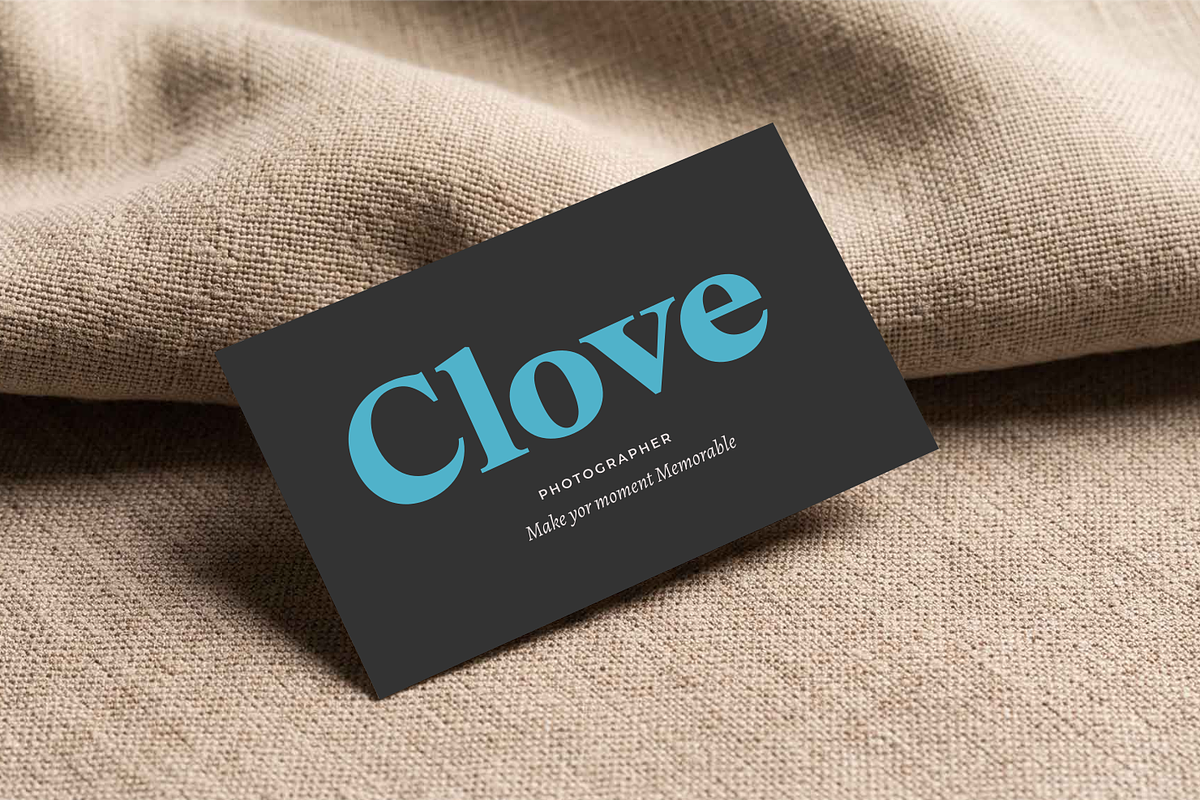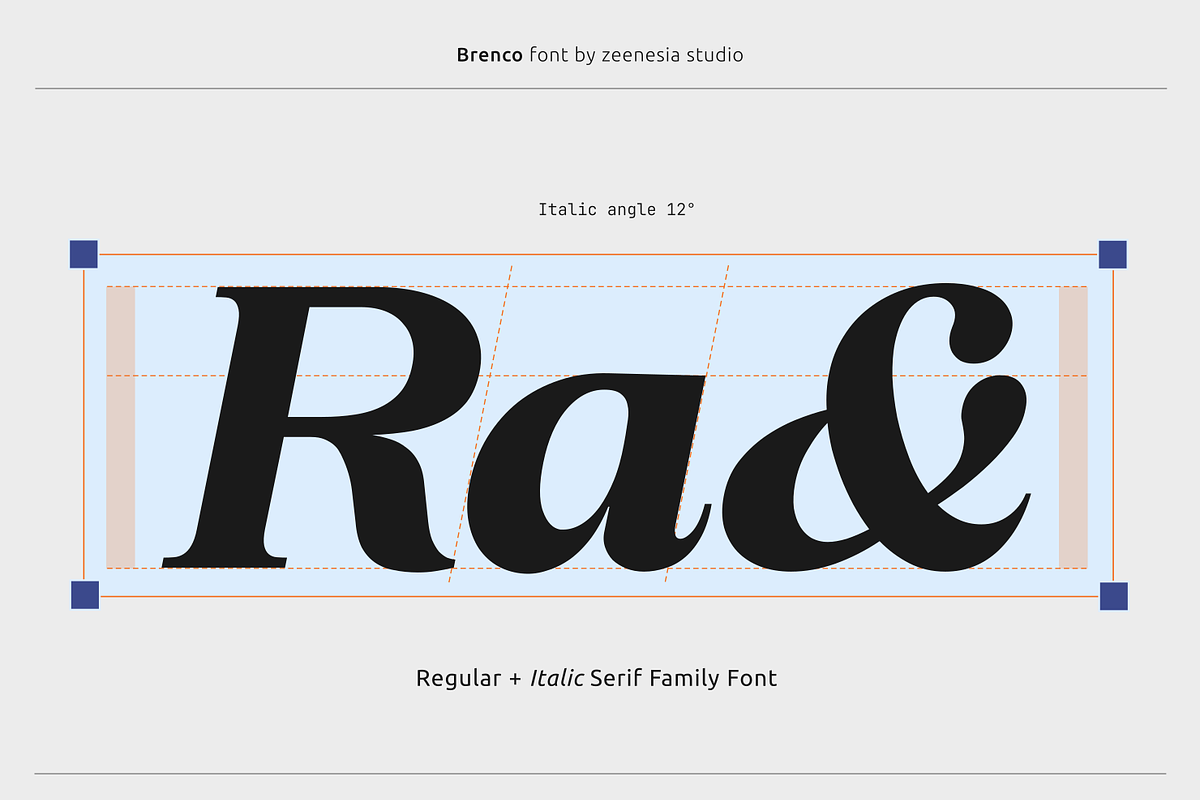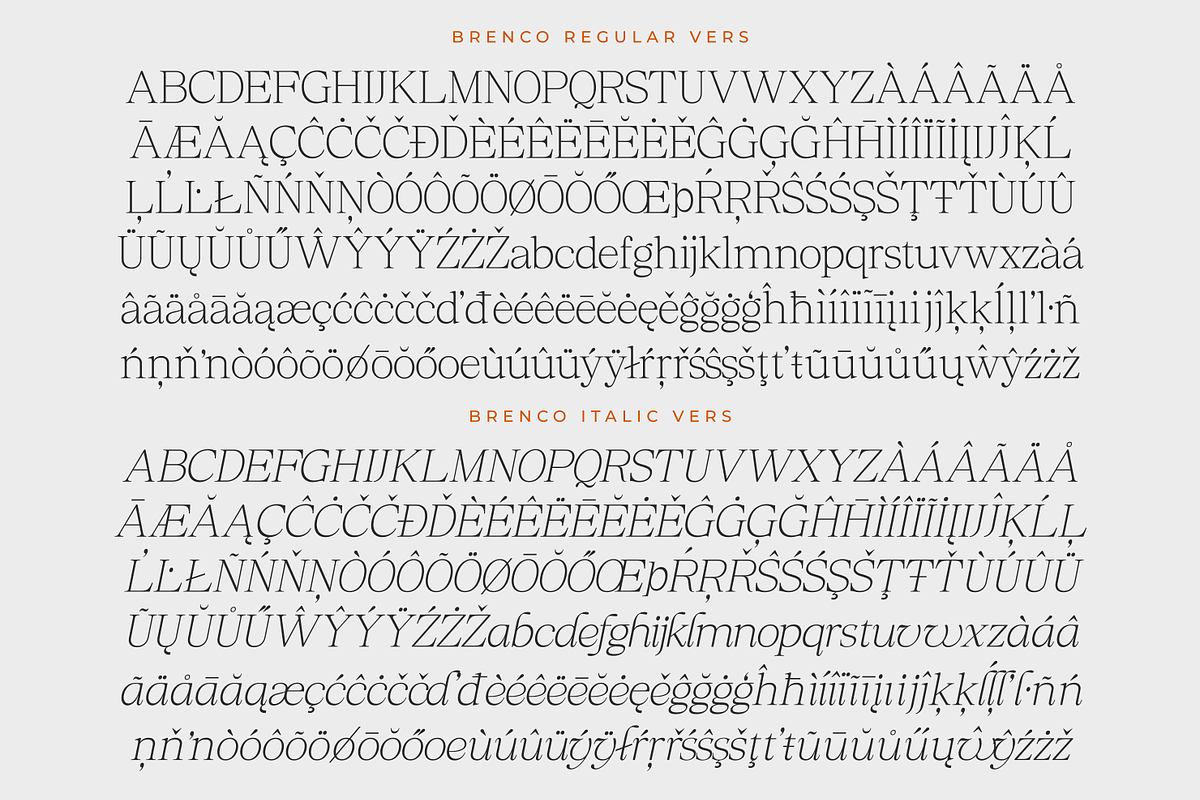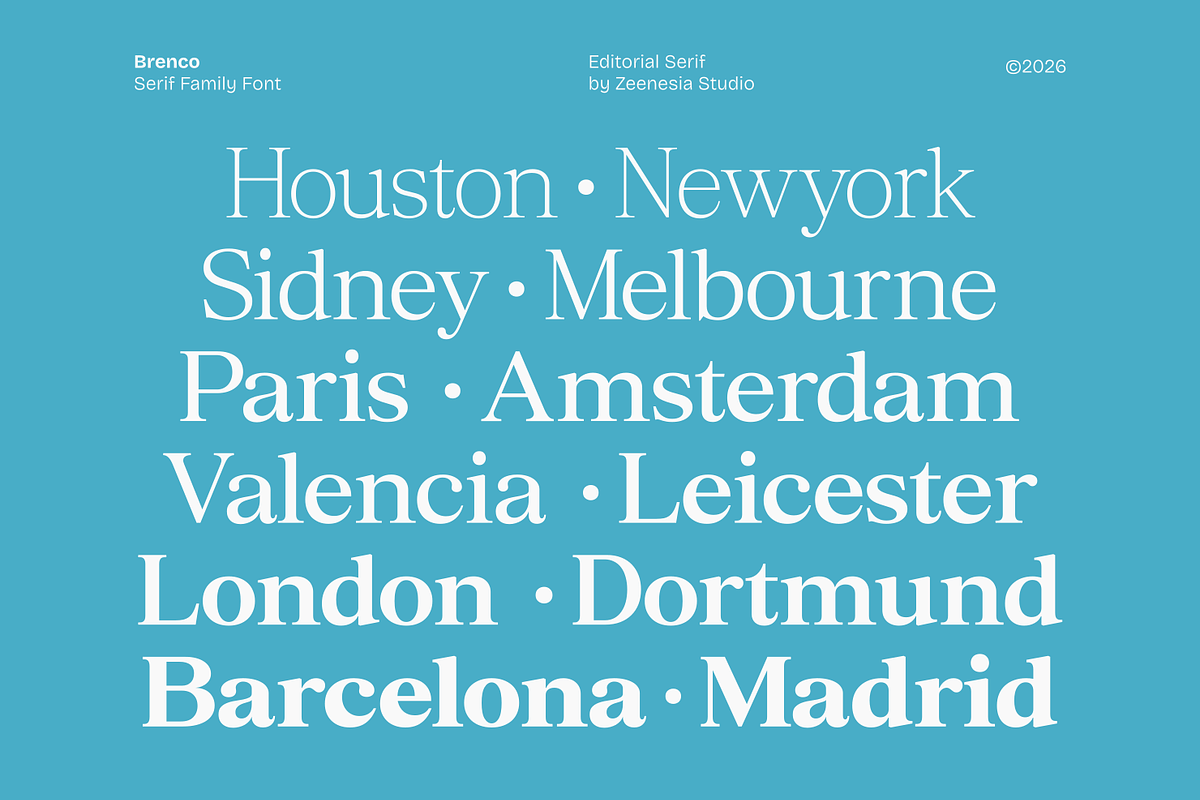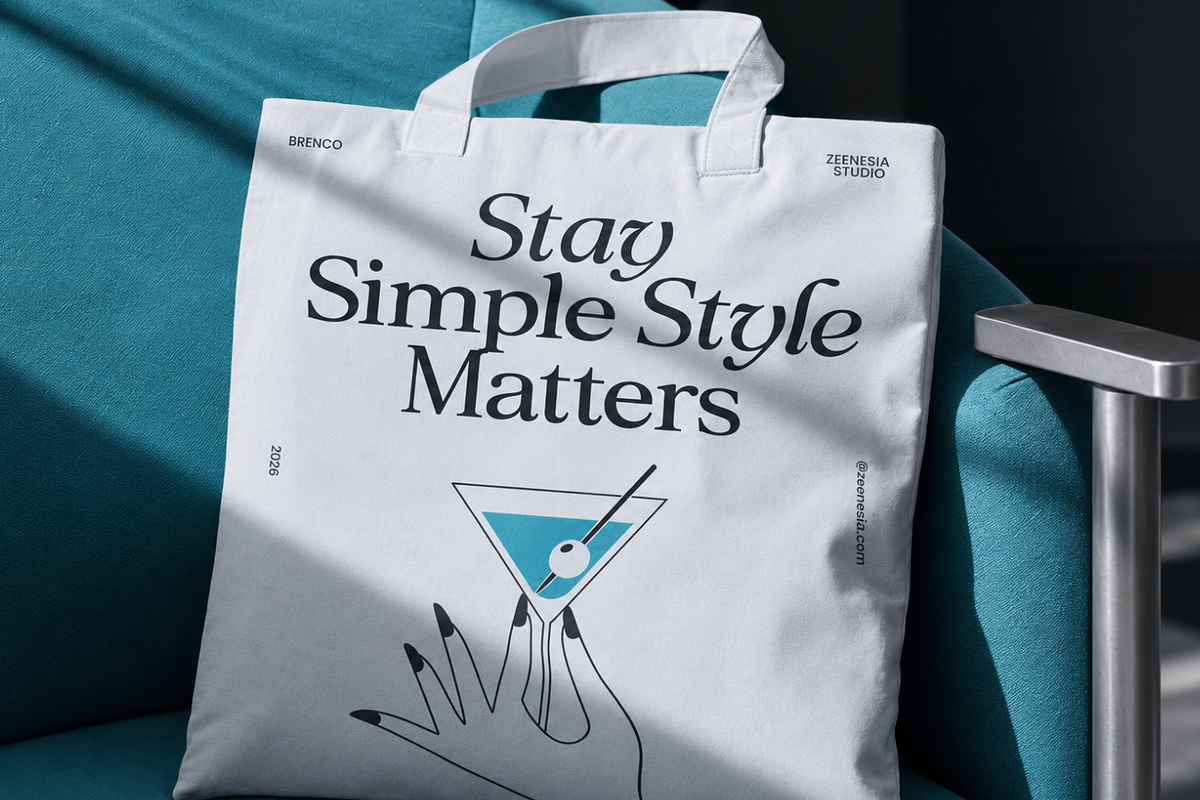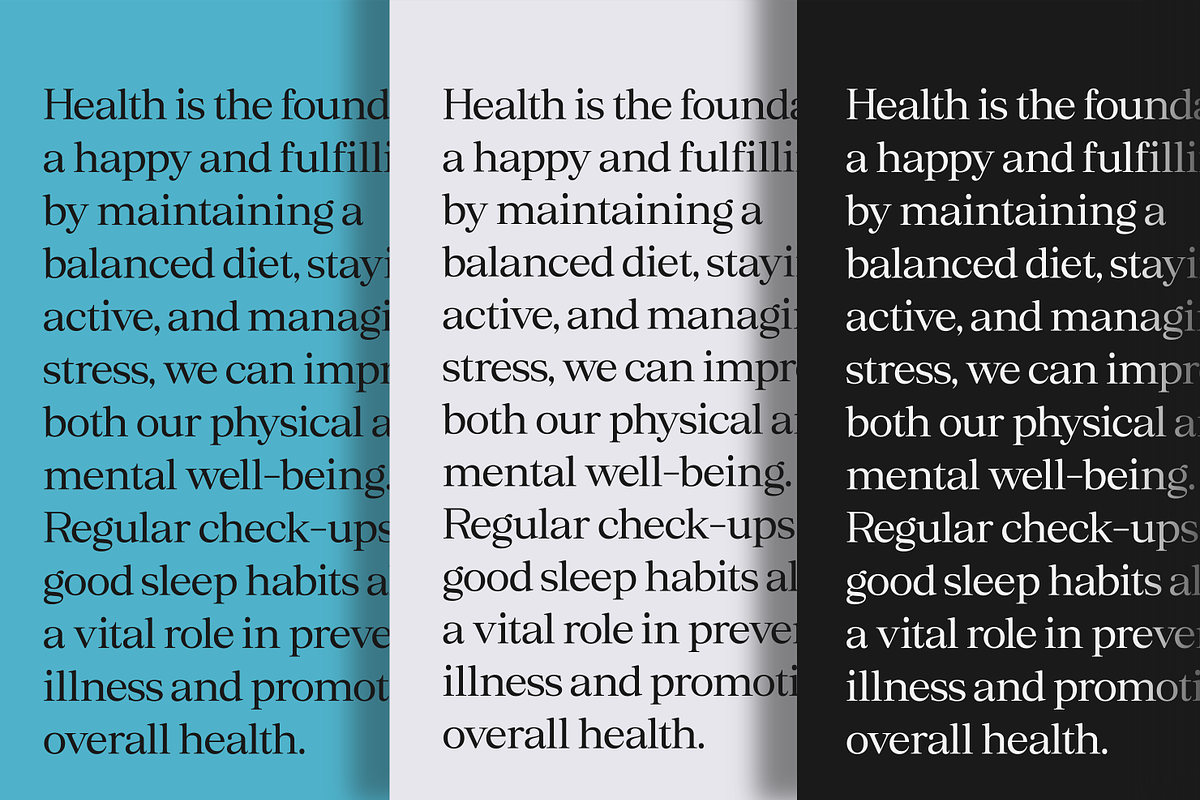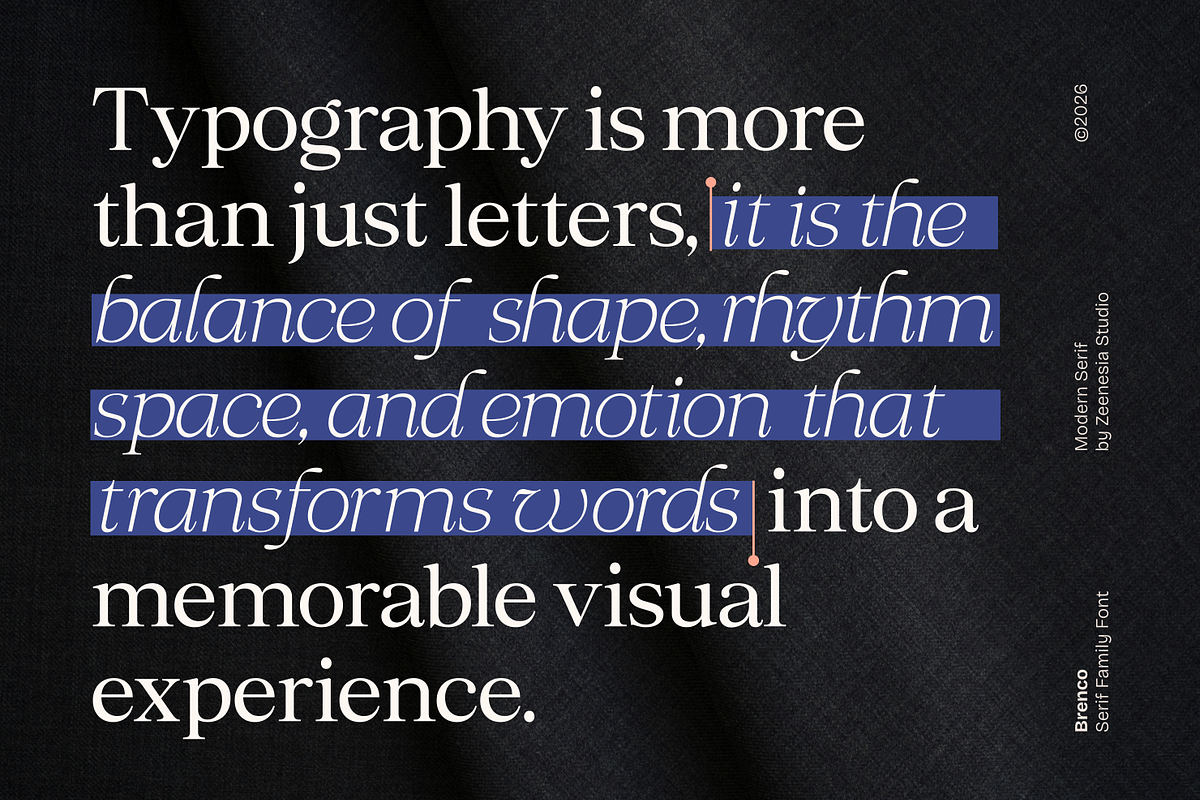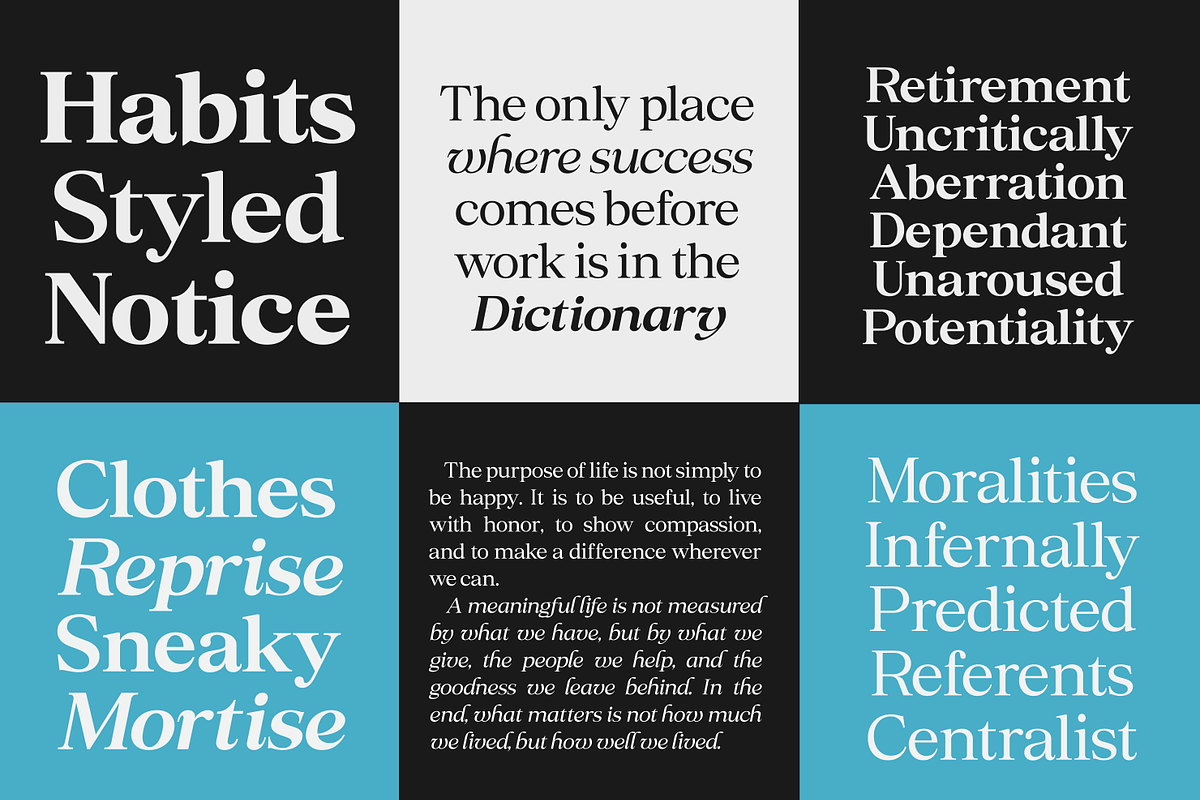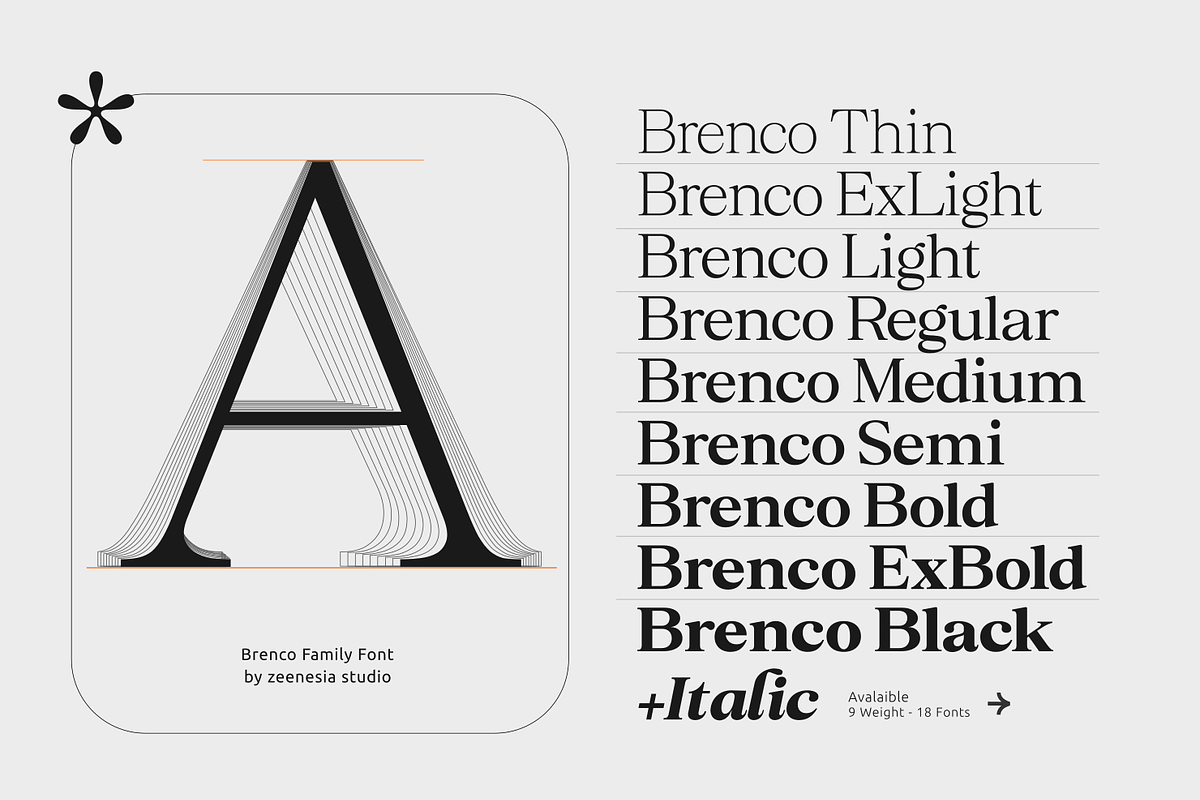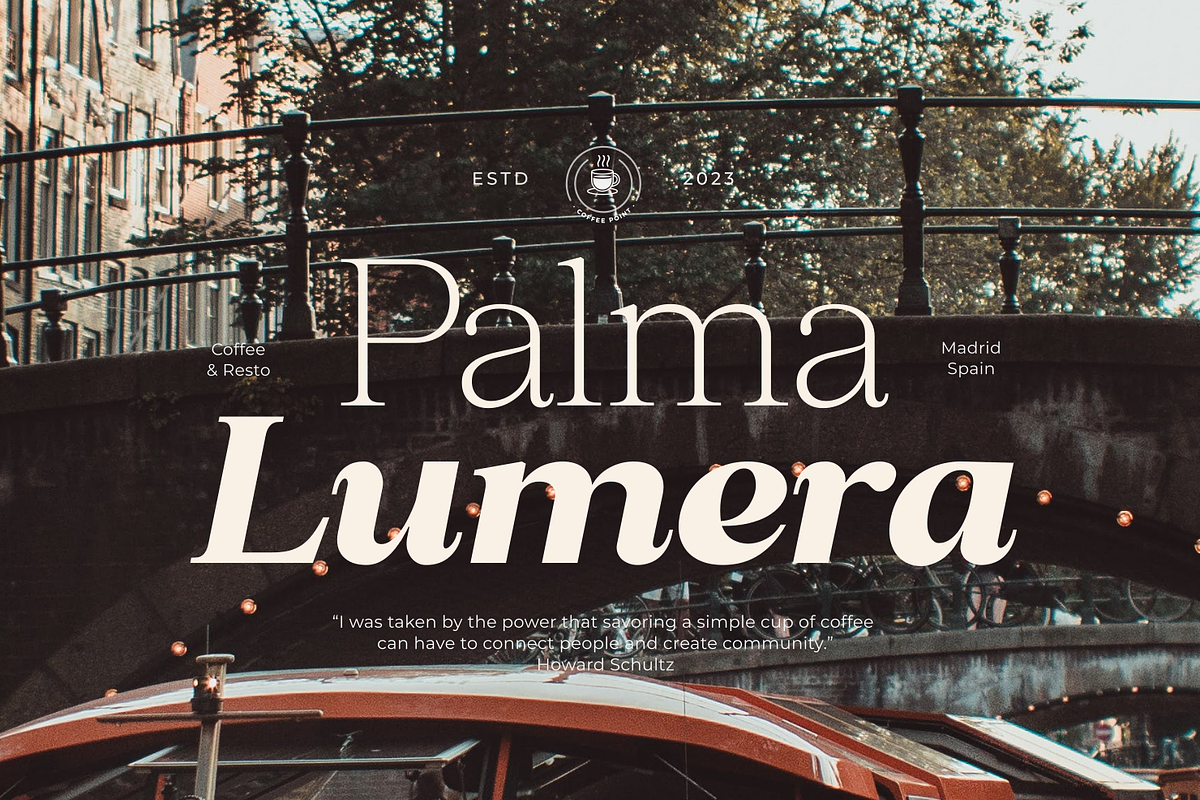
Brenco
Brenco — Editorial Serif Font Brenco is an elegant editorial serif family designed to bring a refined, sophisticated, and contemporary character to your designs. With its high-contrast strokes, graceful curves, and distinctive letterforms, Brenco creates a luxurious yet modern visual impression. Perfect for fashion editorials, luxury branding, magazines, beauty products, invitations, packaging, logos, posters, and social media designs, Brenco works beautifully for both bold headlines and stylish supporting text. Brenco comes with 18 fonts, including Regular and Italic styles, giving you greater flexibility to create elegant typography combinations.